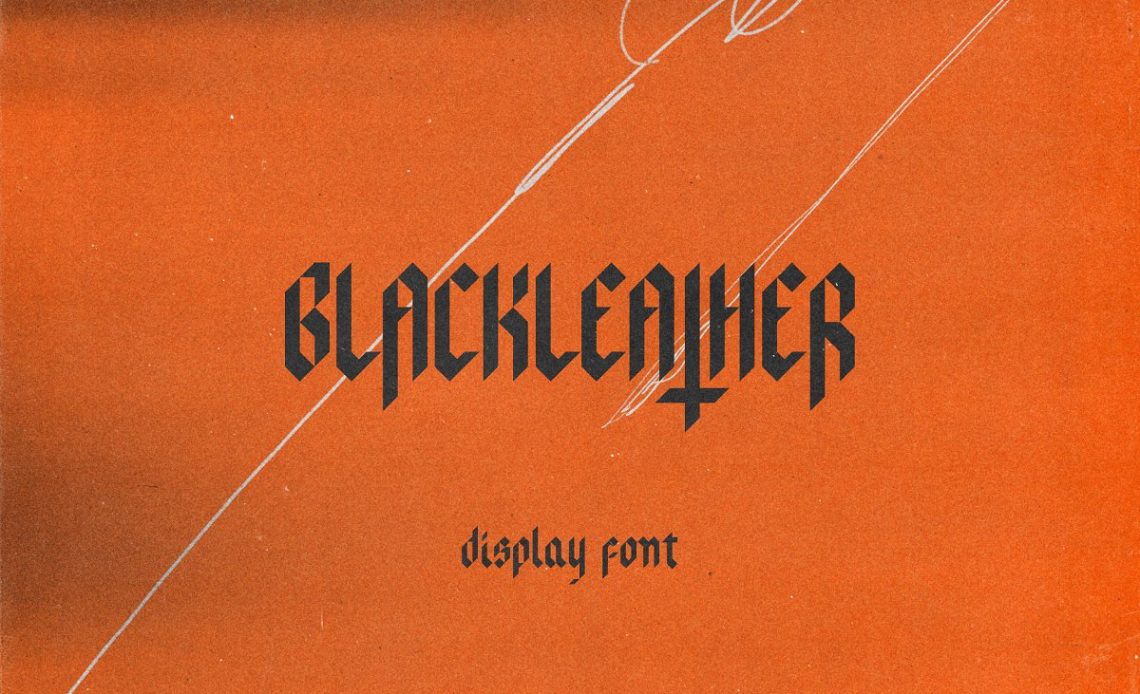
Introducing Blackleather, the ultimate gothic display typeface that will transport your designs into a world of dark and moody vibes. Crafted by the talented Clint English, this font is a must-have for anyone seeking to make a bold statement with their typography.
With its unique blackletter style, Blackleather stands out from the crowd, exuding a sense of mystery and sophistication. Its sharp and clean 90º/45º lines ensure the highest quality output, guaranteeing that your designs will captivate and impress.
But there's more to Blackleather than meets the eye. This exceptional typeface comes complete with full sets of upper and lowercase letters, numbers, symbols, and bonus alternate characters for select letters. This means you have endless possibilities to unleash your creativity and add a touch of individuality to your designs.
Whether you're working on a logo, website, poster, or any other design project, Blackleather will instantly elevate your visuals, creating a captivating and unforgettable experience for your audience. Its versatility allows it to adapt to various themes and concepts, making it suitable for everything from horror movie posters to vintage-inspired branding.
But what truly sets Blackleather apart is its ability to evoke emotions. Its dark and mysterious aesthetic resonates with the inner depths of our souls, stirring up feelings of intrigue, excitement, and even a touch of rebellion. It's the perfect choice for those looking to leave a lasting impression and make a statement that will linger in the minds of their audience.